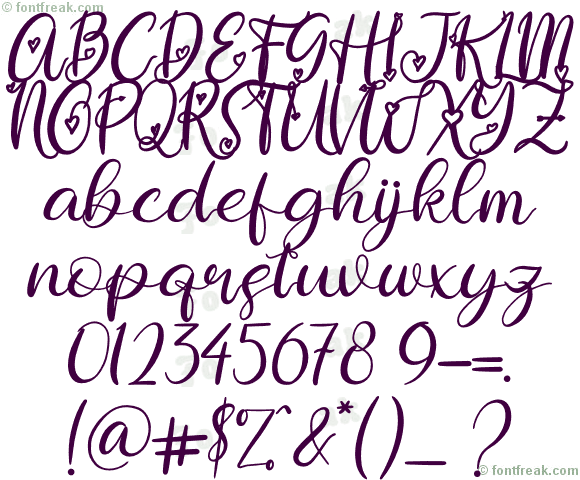
Darinella
Darinella, crafted by Perspectype Studio in 2021, is a captivating script font that embodies elegance and charm. This font features smooth, flowing lines with a moderate stroke weight, creating a sense of warmth and approachability. The contrast between the thick and thin strokes adds a dynamic quality, enhancing its readability while retaining a stylish appearance. The spacing is well-balanced, ensuring that each character stands out without feeling cluttered, making it perfect for various design applications.
Darinella shines in several specific use cases. It is an excellent choice for wedding invitations, where its graceful curves can evoke romance and sophistication. Additionally, it can elevate the design of restaurant menus, giving a personal touch that reflects a cozy ambiance. For creative projects such as greeting cards or personalized stationery, Darinella adds a unique flair, making each piece feel special. It also works well on social media graphics, allowing content creators to craft visually appealing posts that capture attention.
The target audience for Darinella includes graphic designers, small business owners, and content creators who seek to convey a sense of personality and style in their projects. Its versatility allows it to fit seamlessly into various branding strategies, making it a valuable asset for anyone looking to enhance their visual communication.
What truly sets the Darinella font apart is its distinctive character, which balances elegance with a touch of playfulness. This makes it not just a font but a statement piece that can transform any design into something extraordinary. For those interested in adding this beautiful typeface to their collection, the Darinella font free download offers an accessible opportunity to explore its potential in creative endeavors.